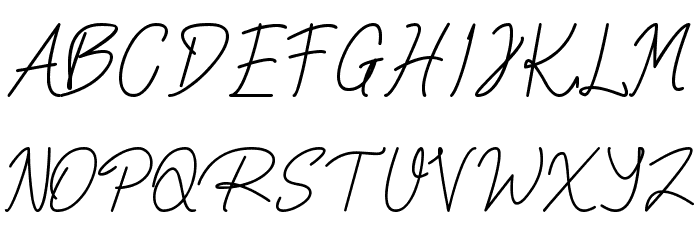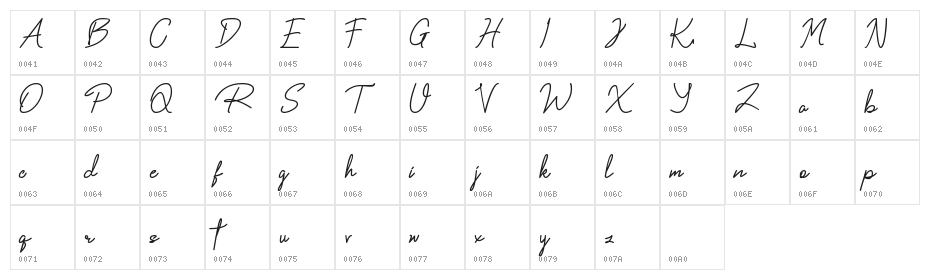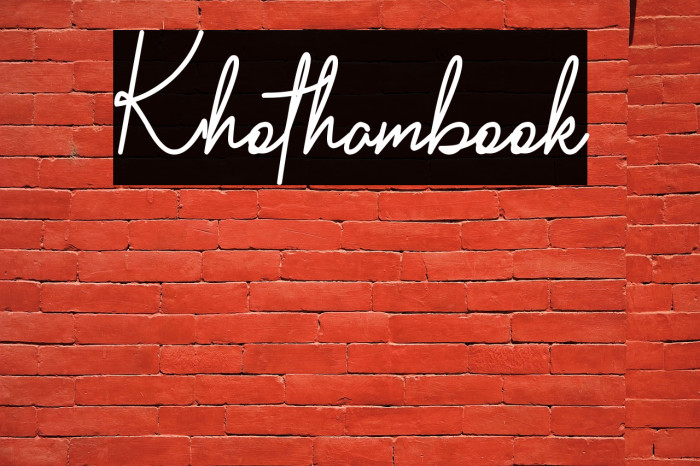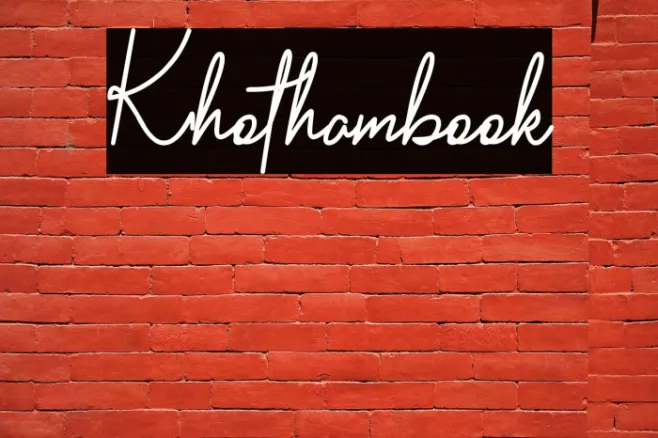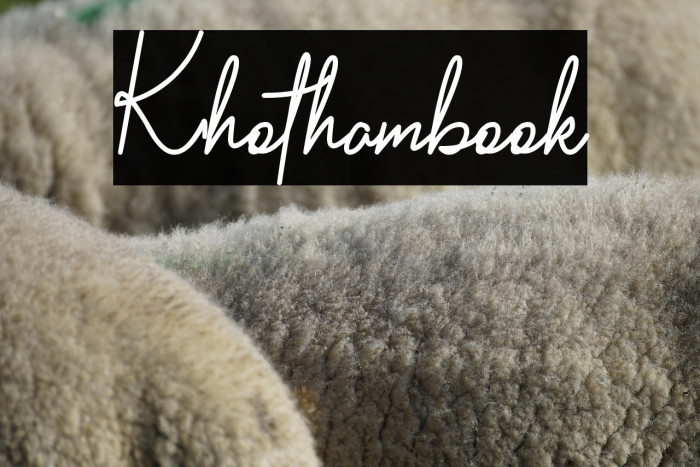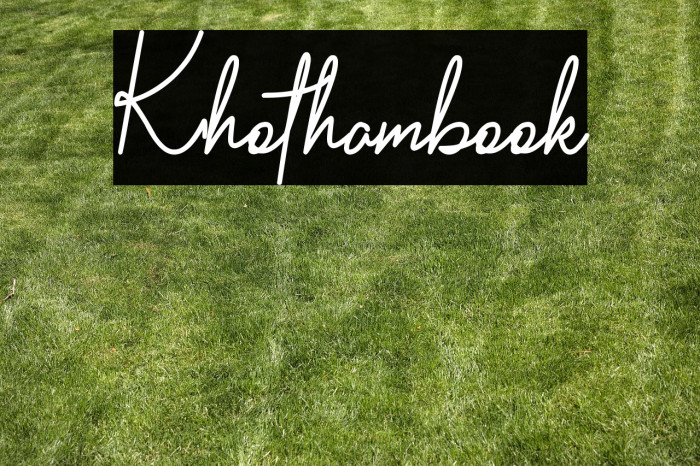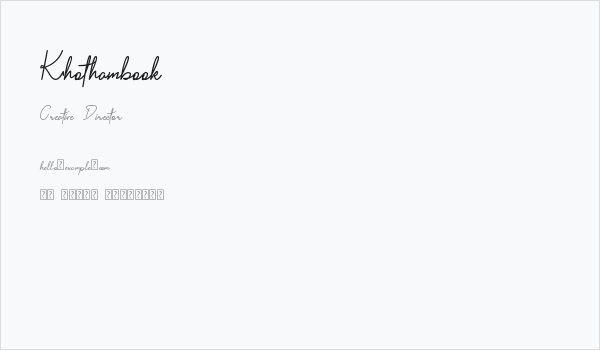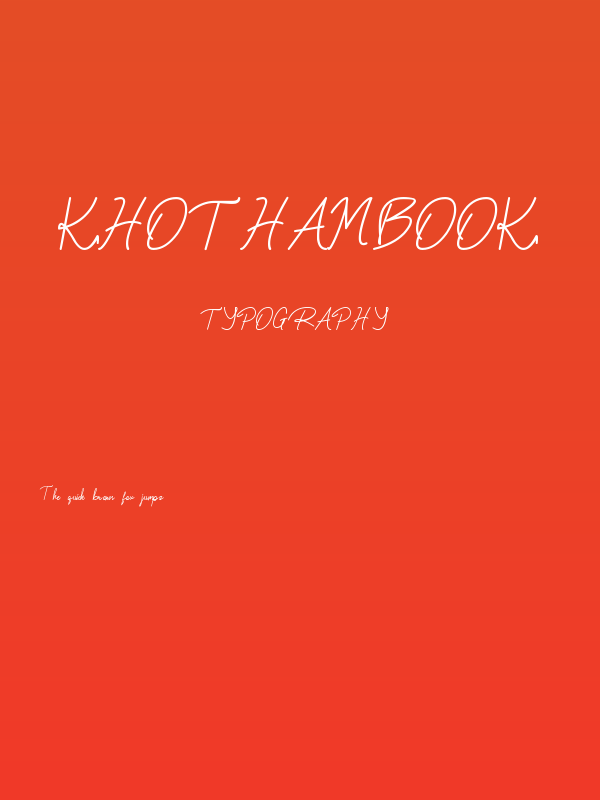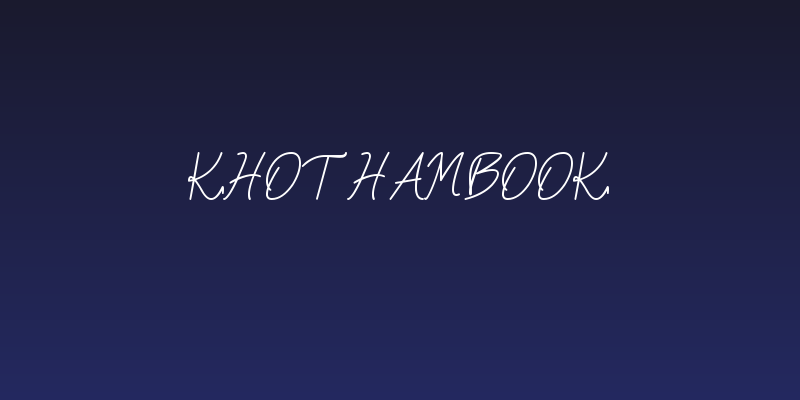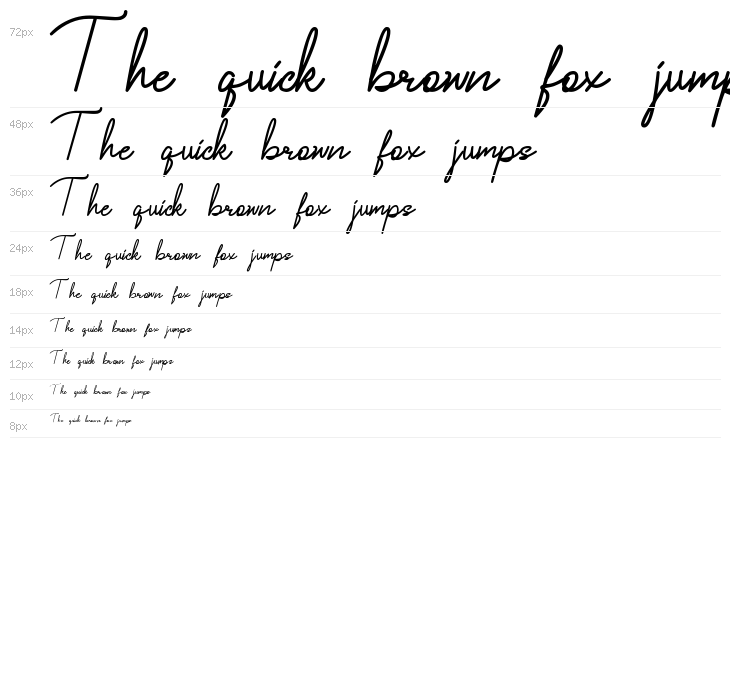
Khothambook Font
Khothambook Description
This font exhibits a flowing, cursive style with a handwritten appearance. The uppercase letters are elegantly slanted, maintaining a consistent stroke width that gives a smooth and connected look. The lowercase letters are more compact, with some characters featuring loops and flourishes that enhance its script-like quality. The numbers and special characters follow the same fluid design, ensuring uniformity across all glyphs. This font is ideal for projects that require a personal touch, such as invitations, greeting cards, or branding materials that aim to convey elegance and sophistication.
| Proposed Projects | Ideal for wedding invitations, personal branding, greeting cards, and elegant stationery. |